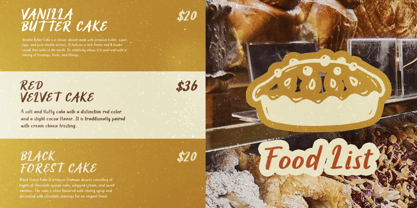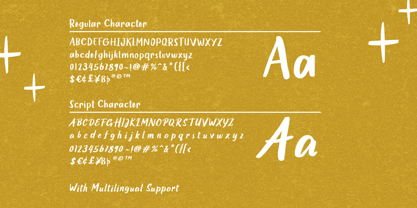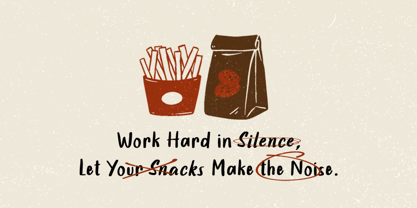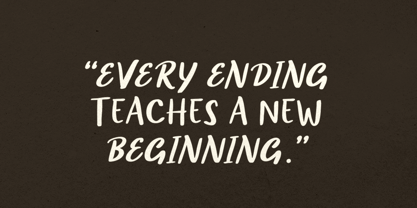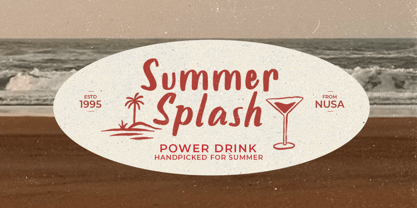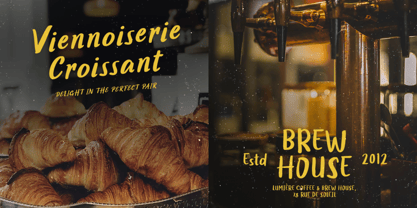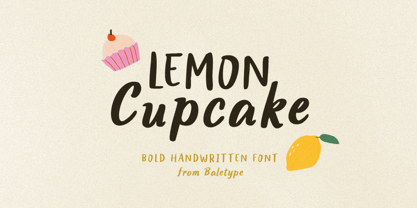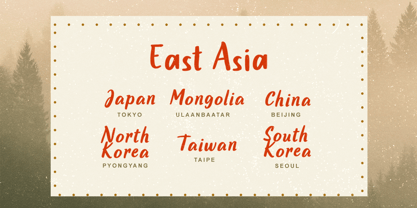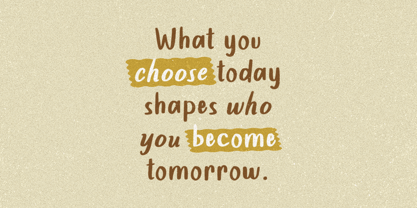
Lemon Cupcake
La famille de polices Lemon Cupcake a été conçue par Dzikrul Aulia et publiée par Bale Type. Lemon Cupcake contient 2 styles et options de package familial. En savoir plus sur cette famille
Lemon Cupcake is a handwritten font that features a bold yet soft appearance, creating a warm, friendly, and charming personality for your designs. Its natural handwritten style makes it perfect for adding a personal and authentic touch to various creative projects. You can use this font for a wide range of purposes, including posters, logos, invitation cards, greeting cards, packaging, branding, social media content, quotes, and other display designs. With an italic version already included, you can easily combine both the regular and italic styles to create beautiful typography compositions that make your projects look more attractive, dynamic, and visually stunning. Whether you are working on casual, elegant, or playful designs, Lemon Cupcake provides the flexibility to bring your ideas to life. In addition, this font comes with multilingual support, making it suitable for both local and international audiences.